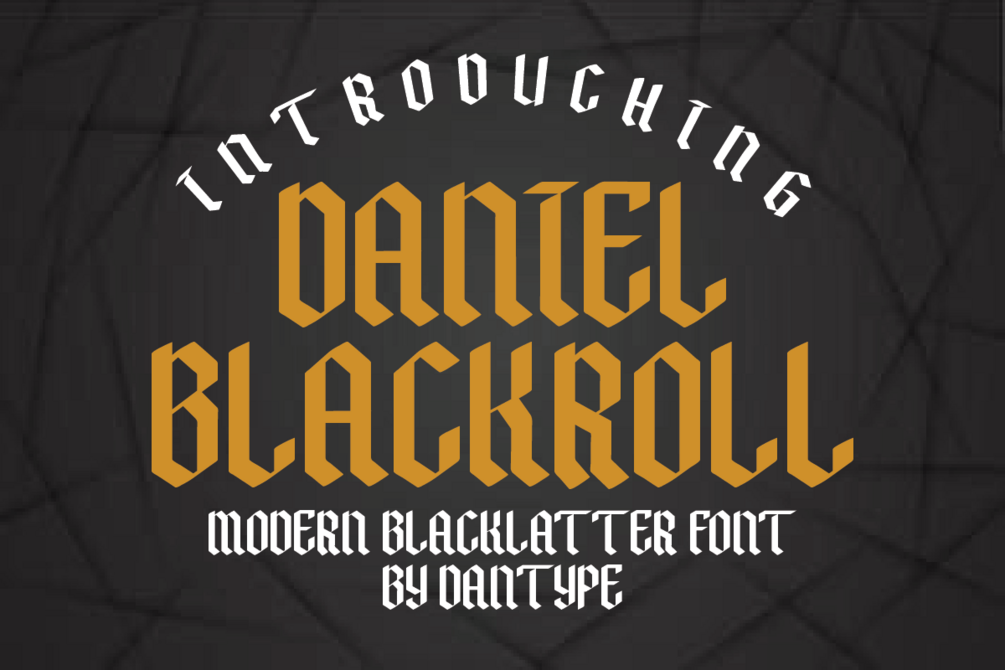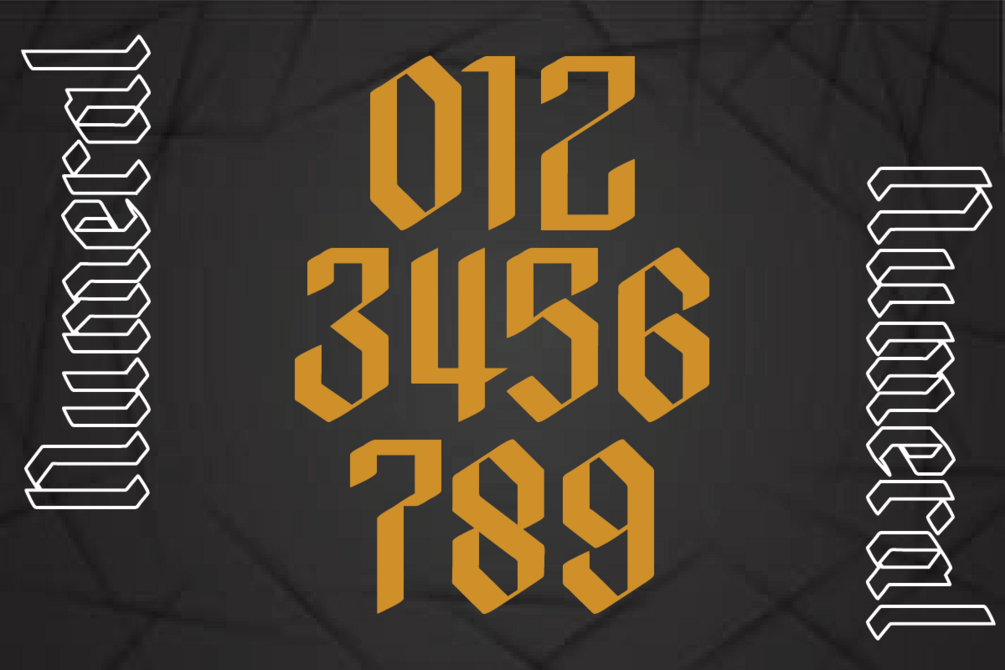
Daniel Blackroll
Daniel Blackroll Blacklatter font. This font would be perfect for photography, watermarks, social media posts, advertisements, logos & branding, invitations, product design, labels, stationery, product packaging, special events, and other projects.